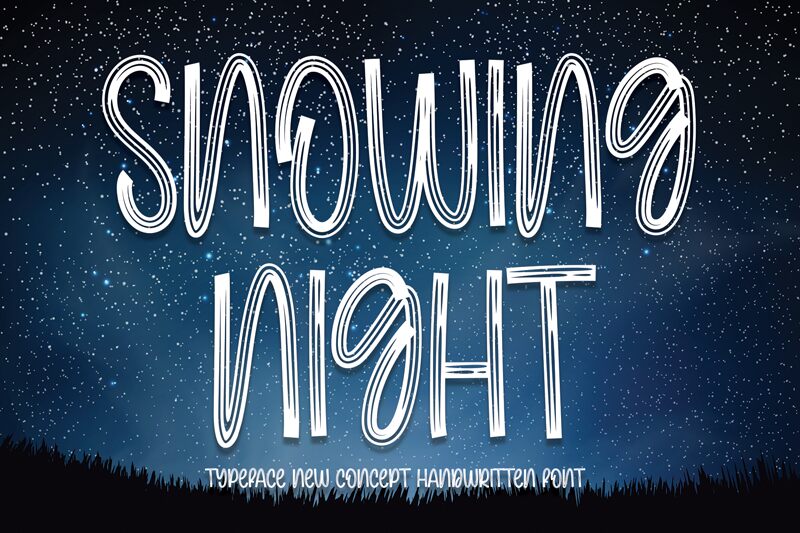
Snowing Night
Snowing Night, a creative endeavor by Scratchones, is a display font that captures the whimsical essence of a winter's eve with its semi-light weight and condensed width. With its enchanting curves and playful serifs, Snowing Night offers an aesthetic appeal that is both charming and sophisticated. The delicate balance between lightness and structure makes this typeface ideal for design projects seeking to convey elegance with a touch of festivity.
The font's condensed nature allows for impactful use in tight spaces without sacrificing readability, ensuring that messages stand out with clarity and style. Whether it's for holiday greeting cards, event invitations, or promotional material for seasonal offers, Snowing Night is versatile enough to infuse any creative project with the magic of a snowy evening. Its unique characteristics ensure that it will not only capture attention but also hold it with its distinctive style.